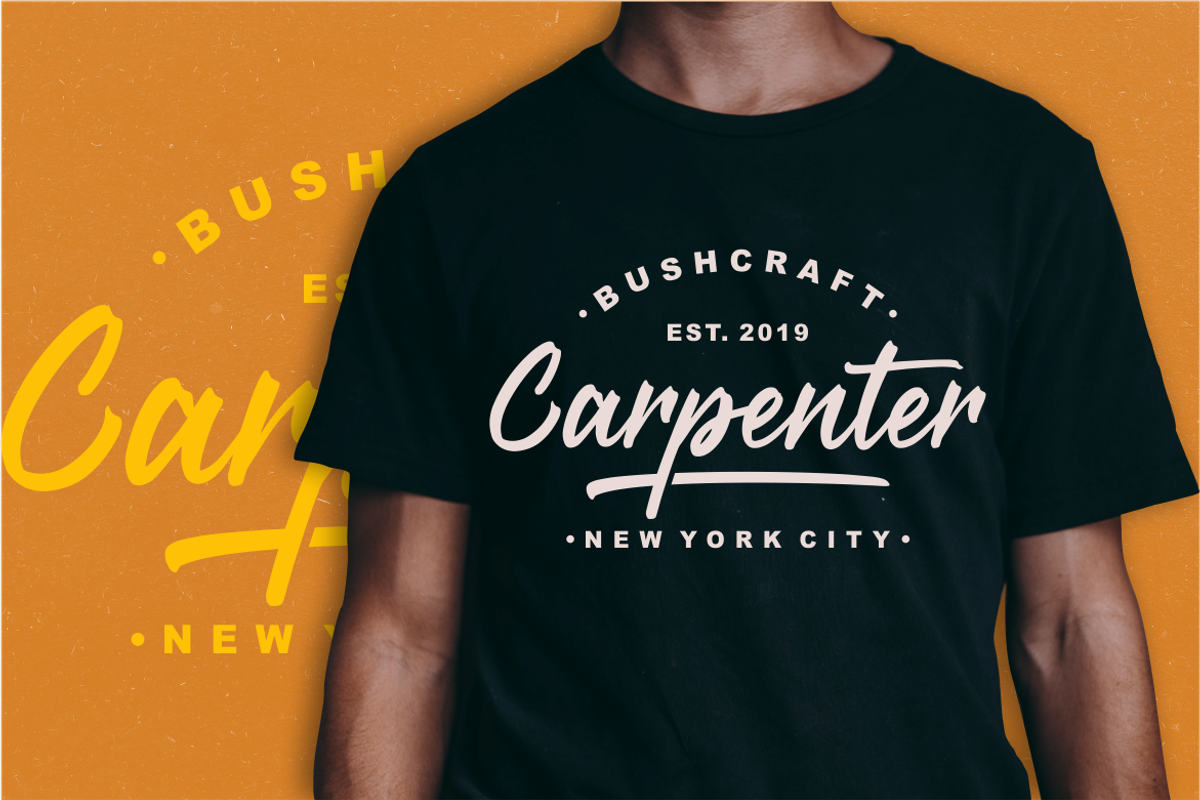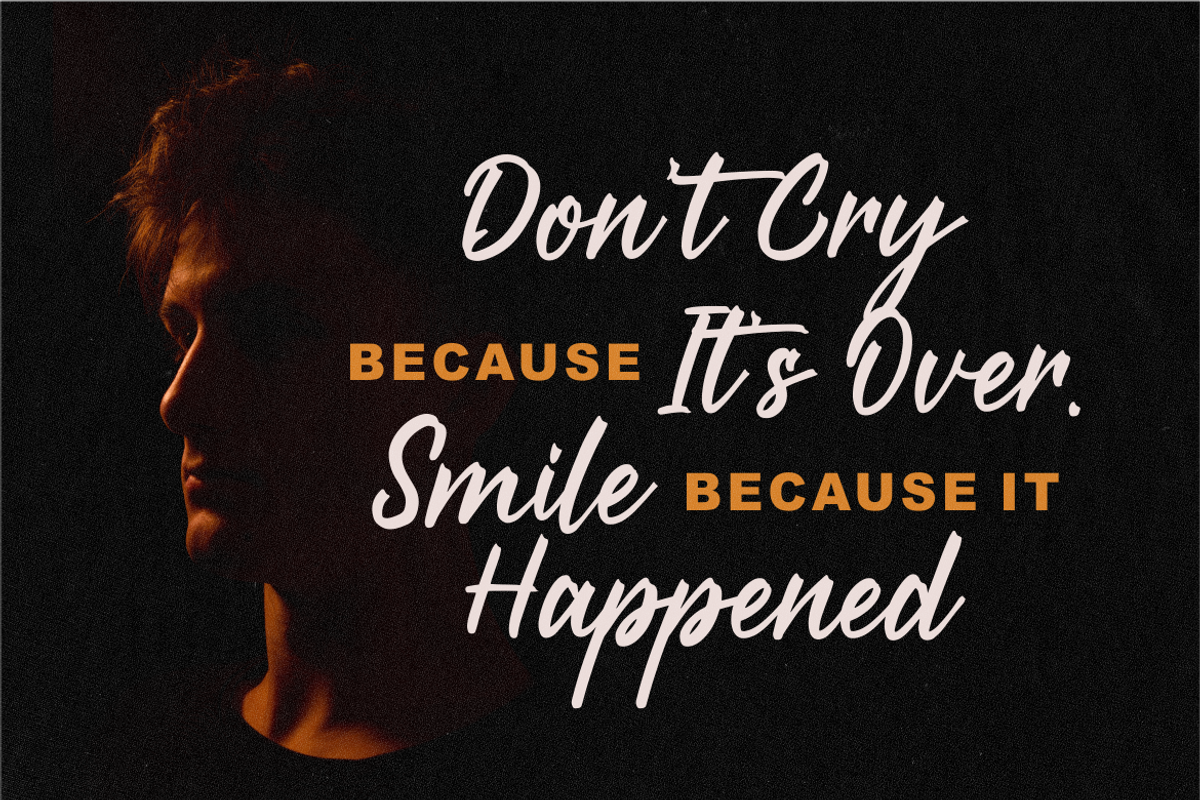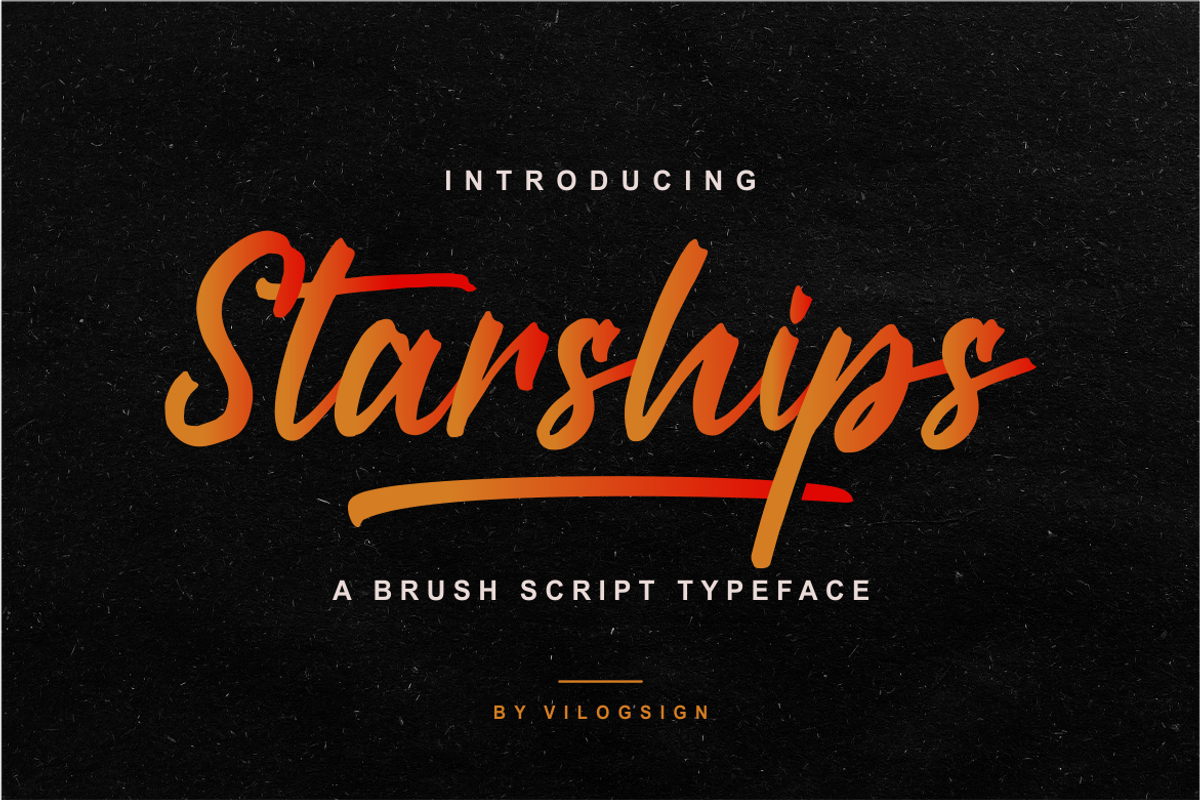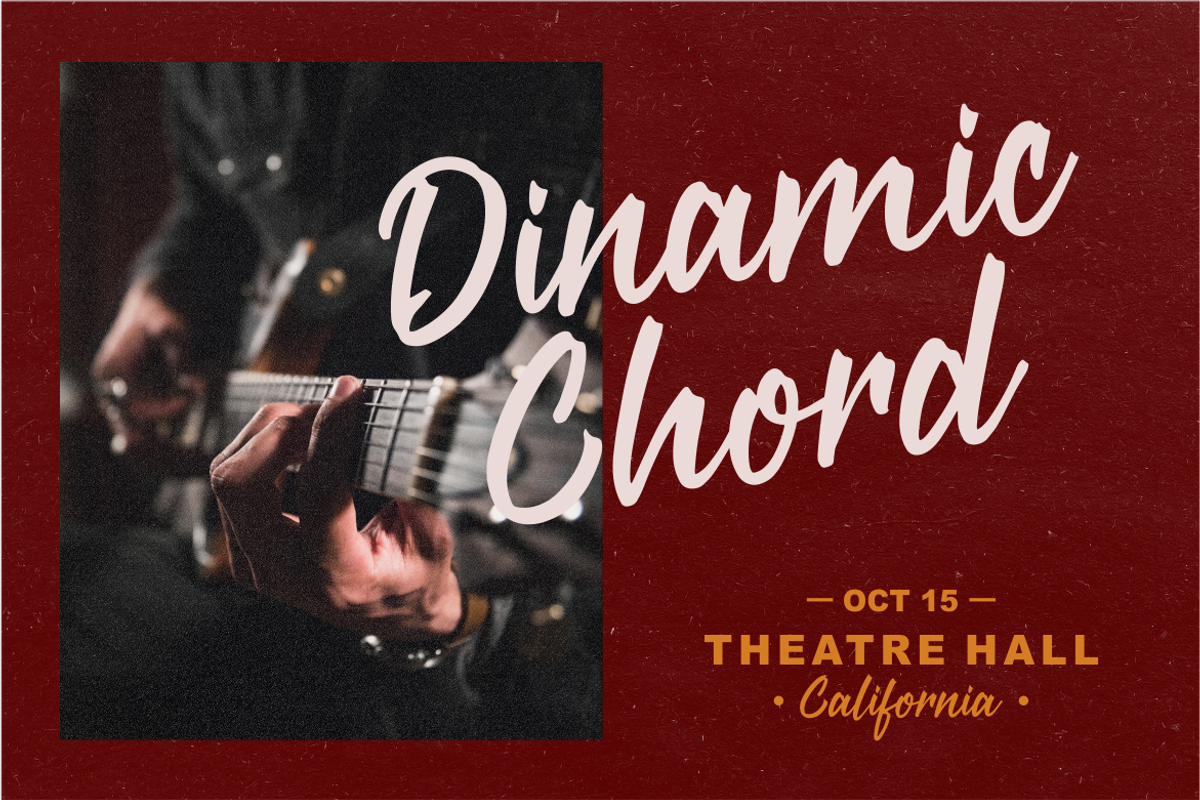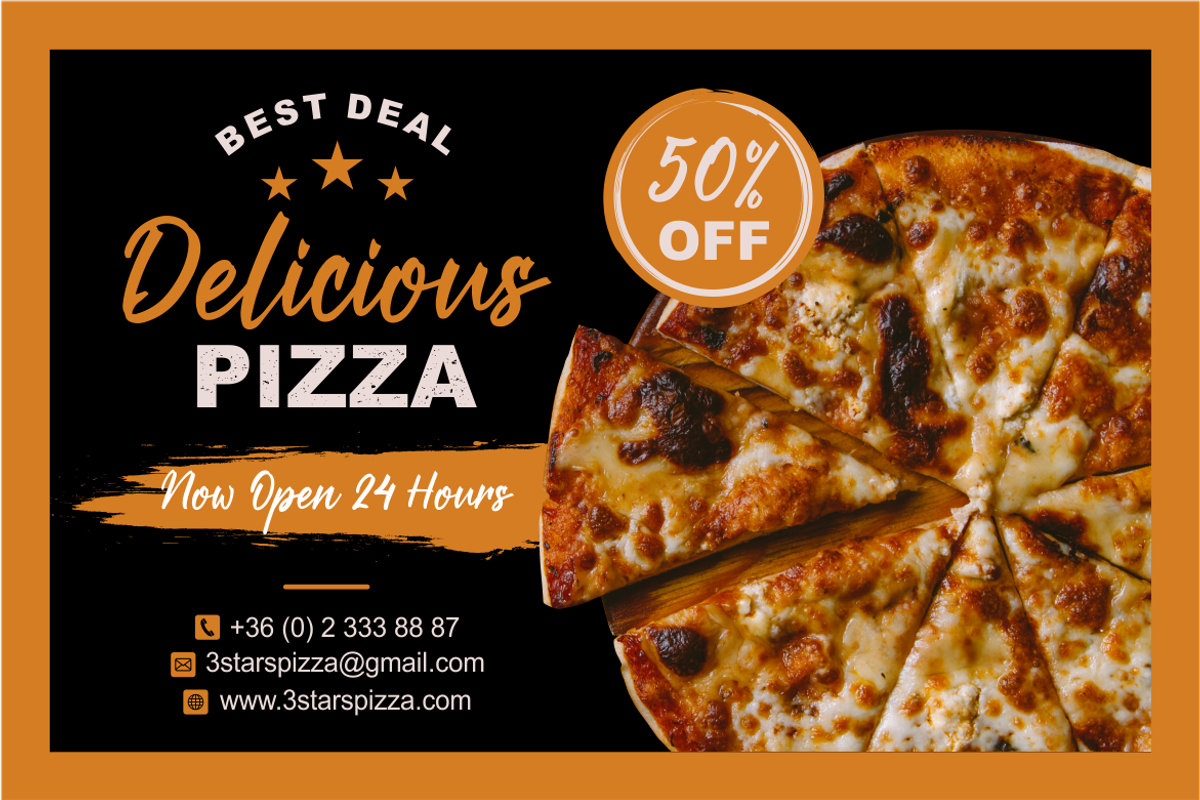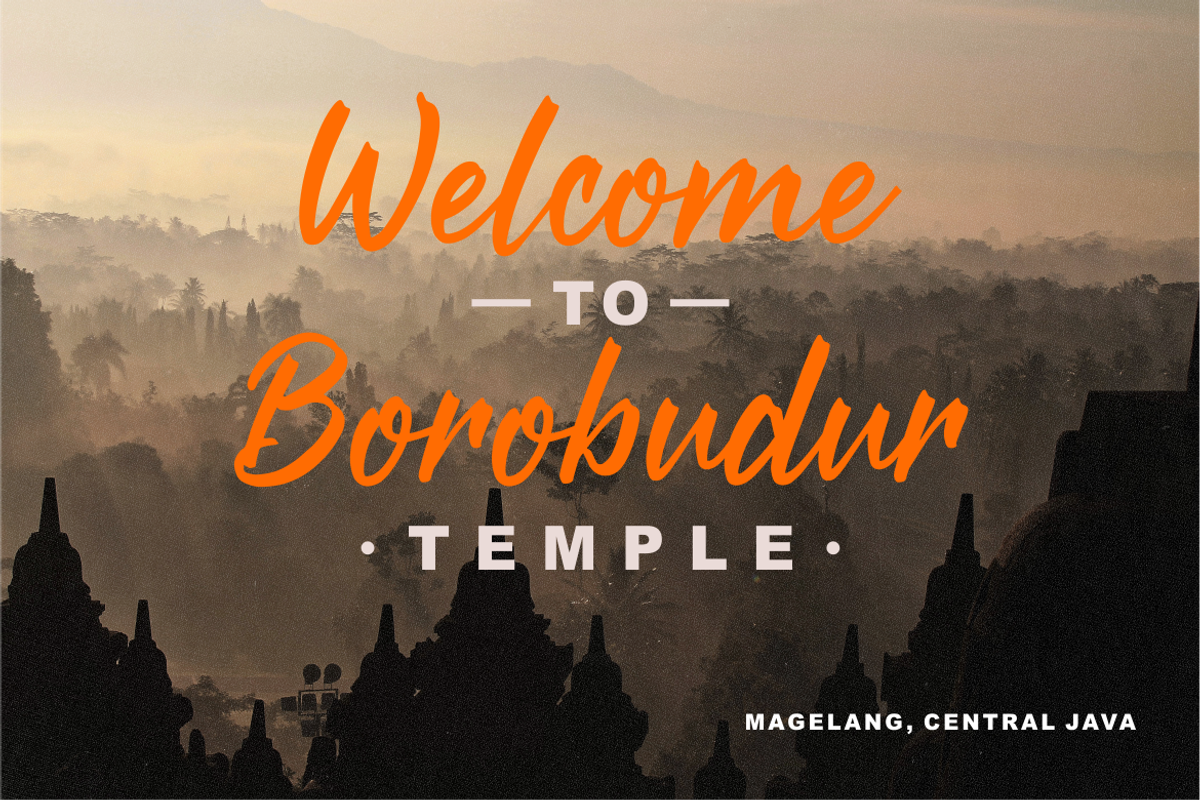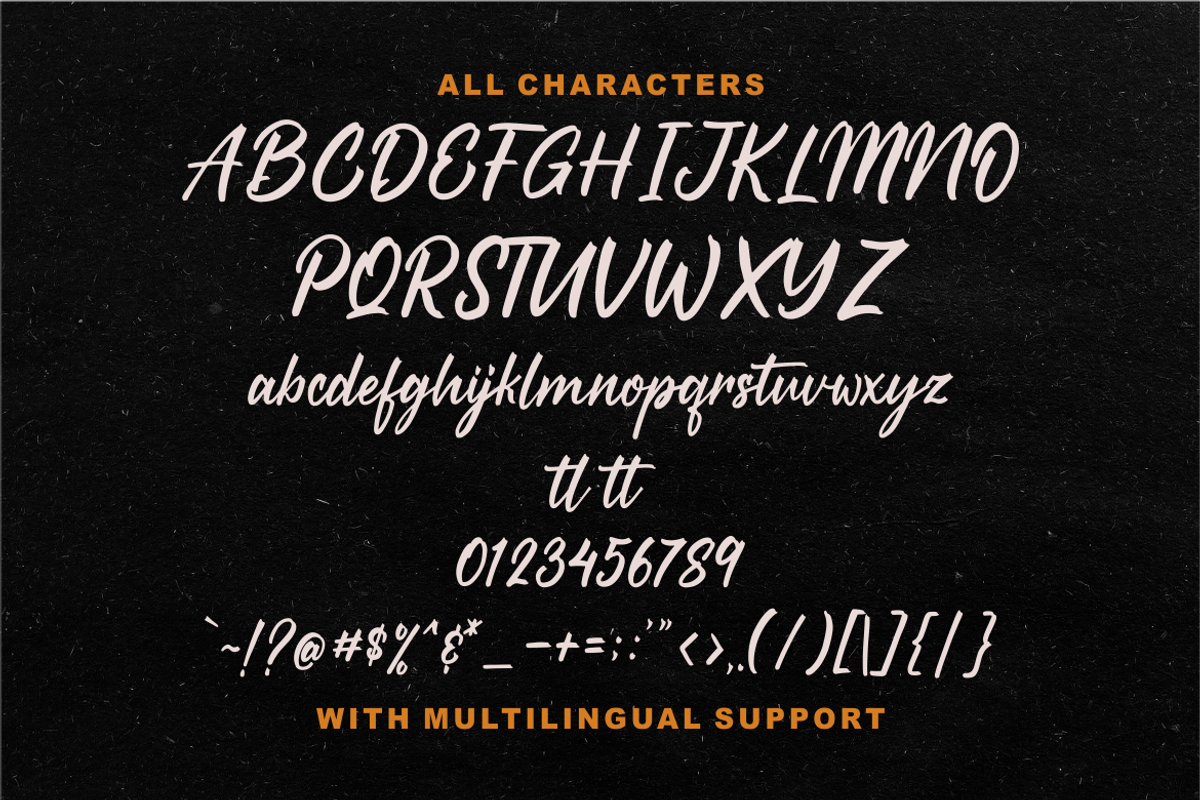
Starships a Brush Script Typeface
Hi,,, Introducing "Starships" a Brush Script Font!!!
Made with all my heart to complete your need This font is very good with multilingual support. And script comes to life as if you are writing it yourself.
I make this font with serious so make this font look beautiful, natural, modern, classic and elegant, very suitable to make a branding, t-shirt, magazine, fashion, quotes, logo, packaging, and other.